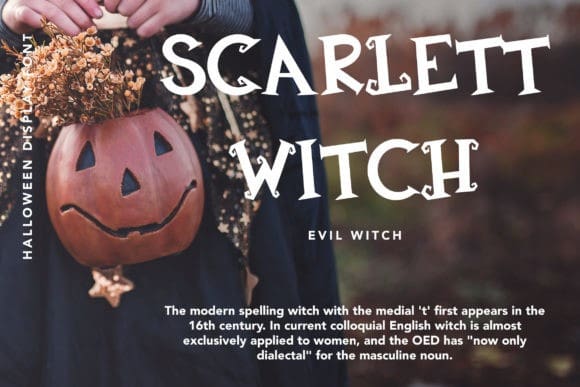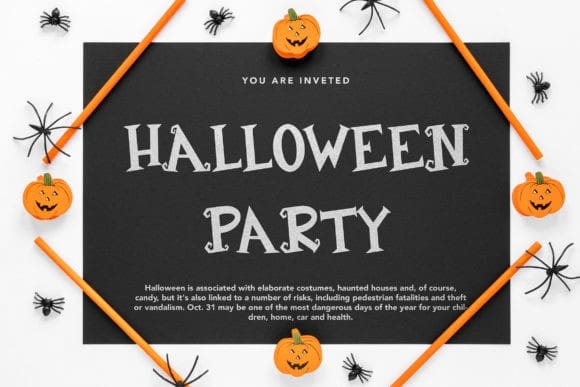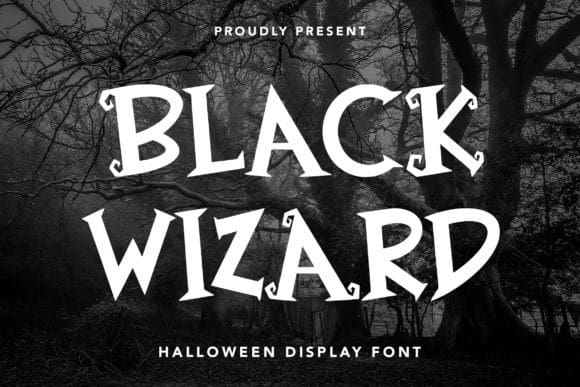
Black Wizard Halloween Font
Black Wizard Halloween Font is a thick-lettered and spooky display font. It is perfectly suitable for any Halloween-related project or crafty idea! Black Wizard is PUA encoded which means you can access all of the glyphs and swashes with ease!